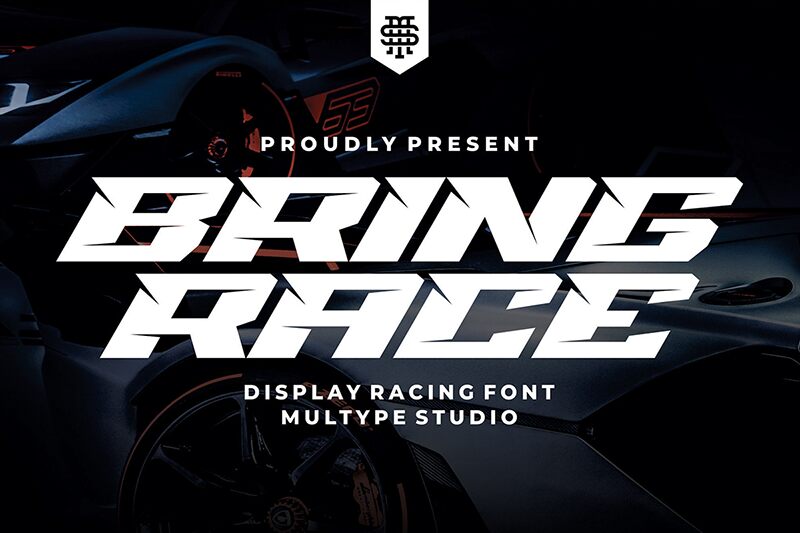
Bring Race, a captivating display font crafted by Multype Studio, exudes a bold, futuristic allure. This expanded, weighty typeface commands attention with its striking, angular letterforms and dynamic presence. The font's architectural aesthetic evokes a sense of modernity and technological innovation, making it a compelling choice for projects seeking a powerful, distinctive visual identity.
Bring Race's versatility shines through its ability to seamlessly integrate into a variety of design contexts. From cutting-edge branding and packaging to impactful event graphics and digital interfaces, this font's singular aesthetic lends itself to projects aiming to make a lasting impression. Its robust, expanded structure and bold character provide an ideal solution for headlines, logos, and other high-impact design elements that demand a strong, visually striking presence.
Bring Race